Free Futuristic Font Recommendations for Modern Design Projects
Typography plays a critical role in shaping how audiences perceive a brand or visual experience. Designers often search for typefaces that communicate innovation, modernity, and forward-thinking identity particularly in the fields of technology, gaming, digital startups, and sci-fi storytelling. One category that has gained significant traction in recent years is the futuristic font.
Futuristic fonts capture an aesthetic that merges minimalism, geometry, and technological precision. They often feature sharp lines, unique shapes, and carefully constructed forms that feel modern and advanced. What makes them even more appealing is that many high-quality futuristic fonts are available for free, giving designers access to professional-grade resources without budget constraints.
This article explores top free futuristic font recommendations and how designers can strategically apply them in branding, editorial, UI/UX, and visual identity projects.
Why Futuristic Fonts Matter in Modern Design
When audiences encounter a futuristic typeface, they instinctively associate it with innovation, technology, or forward-thinking ideas. Typography is never neutral every font carries emotional weight, suggests cultural context, and shapes perception.
Futuristic fonts help express qualities such as:
• innovation
• modernity
• precision
• high-tech
• intelligence
• speed
• vision
• minimalism
These associations are particularly relevant in the branding and product landscapes of tech startups, SaaS platforms, fintech brands, gaming studios, and digital lifestyle products. In these categories, brands must communicate not only what they do, but the future they are promising.
Key Characteristics of Futuristic Fonts
While futuristic fonts vary in style, most share several overlapping qualities:
1. Geometric Structure
Many futuristic typefaces are built using geometric shapes such as circles, grids, and angled strokes. This creates a mechanical and engineered impression.
2. Minimalist Design
Clean layouts and reduced ornamentation help create clarity and sophistication. The less decorative a font is, the more it leans toward a modern, efficient feel.
3. Sharp or Angular Lines
Hard edges and angular cuts reflect precision, speed, and technical direction common in sci-fi and automotive branding.
4. High Contrast or Monoline Weight
Both approaches exist in the genre:
• monoline fonts communicate neutrality and clarity
• high contrast forms emphasize style and aesthetics
5. Unconventional Letterforms
Breaking typographic norms such as disconnected shapes or abstract terminals signals experimentation and futuristic vision.
These traits make futuristic fonts visually engaging while preserving function.
Where Futuristic Fonts Are Used
Futuristic typefaces are extremely flexible in modern design environments, appearing in both print and digital contexts. Common usage includes:
• brand logos
• product packaging
• poster design
• UI/UX interfaces
• gaming titles
• digital dashboards
• film titles
• tech promotional campaigns
• event branding
• app or software identity
• VR/AR content
In many cases, the typography becomes a core part of brand differentiation.
Free Futuristic Font Recommendations
The following fonts offer high-quality futuristic styling and are accessible for free. Designers can experiment without onboarding costs, which is ideal for students, freelancers, and indie creators.
1. Power Strain — Bold and Impactful
Power Strain delivers a bold, structured, and impactful look. Its thick strokes and geometric builds make it especially effective for titles and headline usage.
Best used for:
• esports branding
• poster titles
• automotive or tech campaigns
• sci-fi film graphics
• sports and gaming merchandise
Its confident typography communicates strength and performance, while remaining readable from a distance.
2. Tronix — Minimalist and Clean for Digital
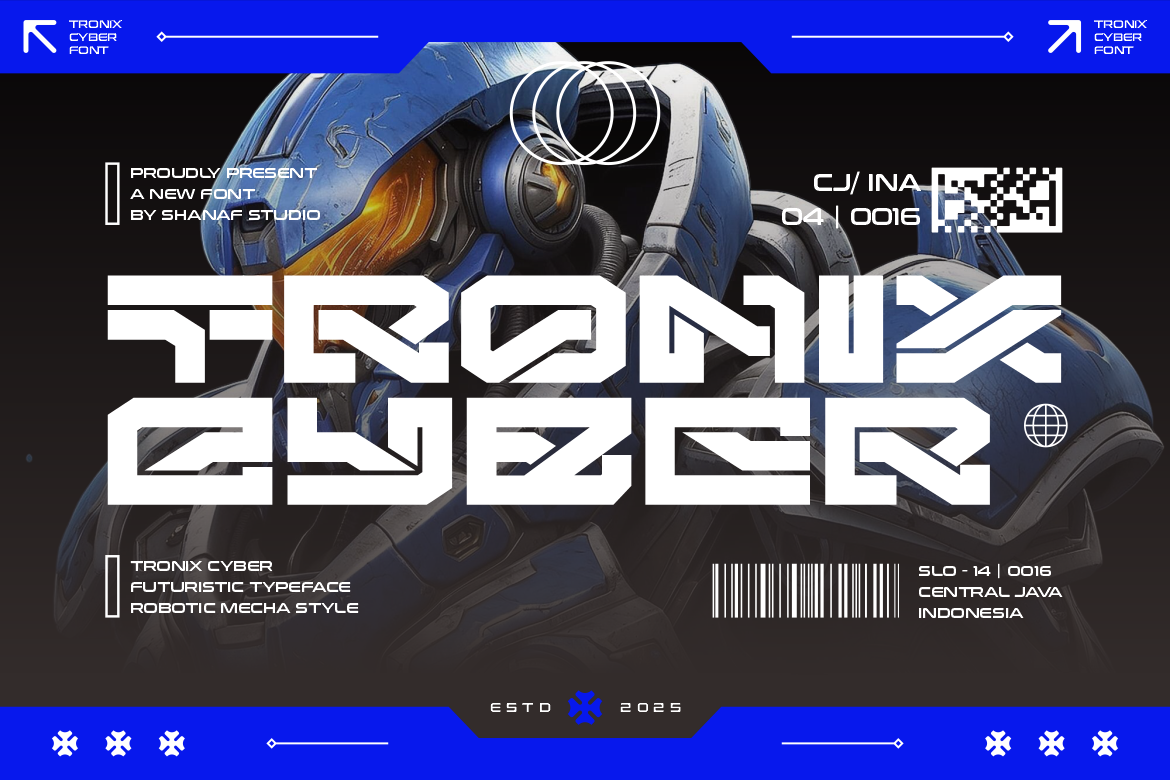
Tronix embraces a minimalist approach. It demonstrates how futuristic fonts don’t always need to be loud to be effective. With thin lines and simplified forms, it is ideal for digital-first applications.
Best used for:
• UI/UX interfaces
• app design
• fintech and SaaS branding
• VR/AR experiences
• product dashboards
Tronix fits seamlessly with modern UI design systems and feels native to software environments.
3. Formaxis — Experimental and High-Concept
Formaxis pushes the boundaries of letterform design. It blends geometric shapes with abstraction, giving it a conceptual tone often used in creative fields.
Best used for:
• editorial layouts
• conceptual design
• sci-fi brand storytelling
• poster artwork
• experimental campaigns
This type of font is not always intended for functional body text but works beautifully in display typography where expressiveness matters.
4. Galactic Module — Retro-Future Innovation
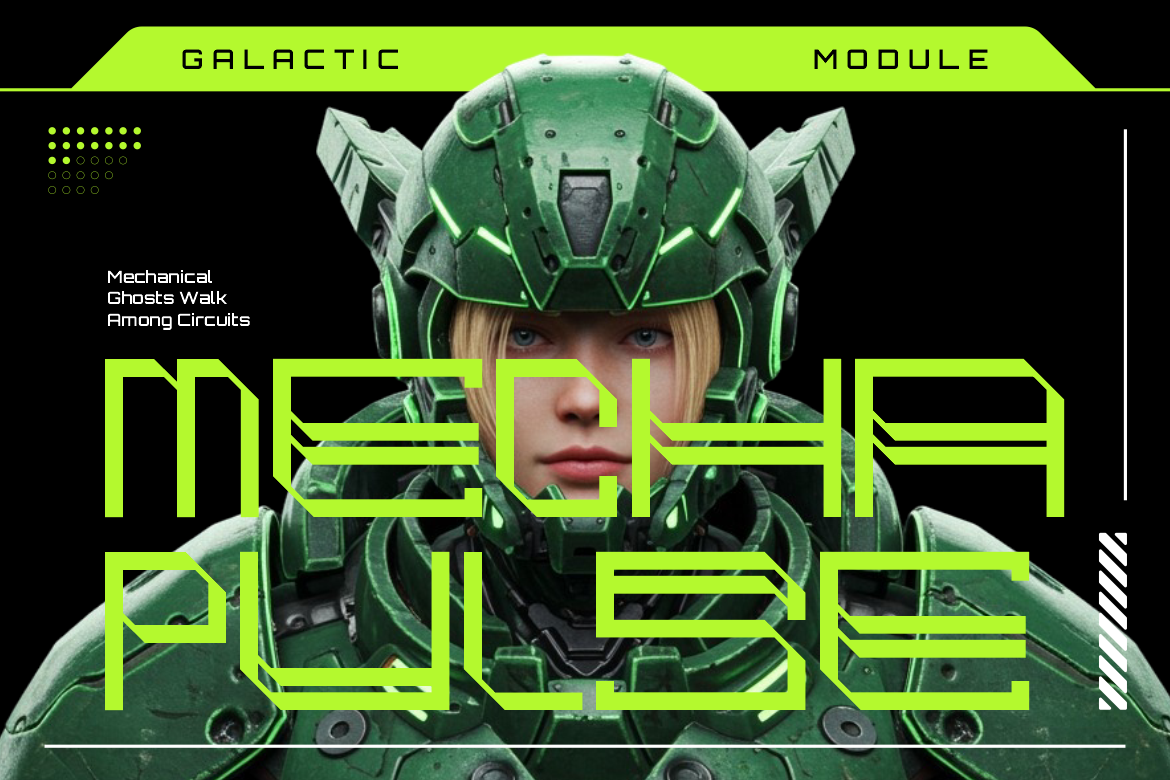
→ https://www.fontspace.com/galactic-module-font-f144320
Galactic Module blends retro sci-fi inspiration with modern execution. Its modular structure and curved geometry evoke early digital aesthetics from arcade games and computer culture.
Best used for:
• gaming titles
• nostalgic tech brands
• sci-fi movie visuals
• hacker culture graphics
• merchandise and apparel
This style shows how futuristic fonts can reference the past while imagining the future.
Paid Futuristic Fonts Worth Exploring
In addition to free options, designers seeking premium quality and stylistic control often turn to commercial fonts. Below are paid futuristic fonts from Putracetol.com that complement the genre with expressive display characteristics:
• Nebula Avenue Duo — experimental techno brush font
• Cyber Aliens — modern sci-fi headings
• Tegno — bold retro-tech lettering
• Votrag — minimalist modern sans font
• Marseilazi 9 — strong bold geometric style
These options provide more refined execution, ligatures, and stylistic alternates that free fonts rarely include.
Benefits of Using Futuristic Fonts in Design
| Benefit | Explanation |
|---|---|
| Modernity | Creates a contemporary and visionary impression |
| Branding | Strengthens identity for tech-oriented organizations |
| Flexibility | Works well in both print and digital formats |
| Efficiency | Many high-quality options are available for free |
| Differentiation | Helps brands stand apart visually from competitors |
With industries shifting toward digital transformation, futuristic typography aligns with cultural and technological momentum.
Choosing the Right Futuristic Font
Designers should avoid selecting fonts solely for their aesthetic appeal. Good font choice requires strategic alignment.
Consider three questions:
1. What message must the brand communicate?
A gaming platform might favor bold angular fonts, while a fintech platform might require minimalist clarity.
2. Who is the target audience?
Different user groups interpret visual cues differently. Youth culture may welcome abstraction, while enterprise clients require legibility.
3. Through what mediums will the font appear?
Typography behaves differently across:
• mobile screens
• print posters
• packaging
• dark/light UI modes
Testing across contexts prevents mismatched design outcomes.
SEO-Aligned Conclusion
Futuristic fonts offer designers an accessible and powerful way to communicate innovation, forward-thinking identity, and technological sophistication. Whether used in UI interfaces, sci-fi posters, startup branding, or gaming campaigns, the right font can define the entire visual language of a project.
With a wide selection of free options available including Power Strain, Tronix, Formaxis, and Galactic Module, creatives can explore modern design aesthetics without financial barriers. Meanwhile, premium typefaces from platforms like Putracetol.com provide more depth, versatility, and refinement for professional branding work.
At a time when digital culture is accelerating, futuristic typography has become more than a design trend but it has become a visual representation of progress, innovation, and the future itself.